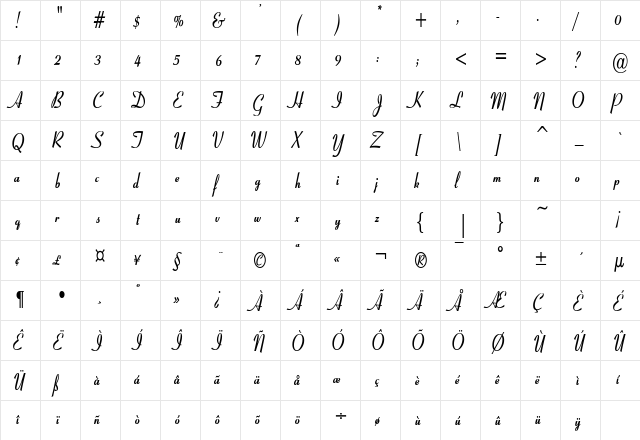
CoronationScriptCondensed Bold Font Preview
Design Context for CoronationScriptCondensed Typeface
CoronationScriptCondensed flows with the natural rhythm of handwritten lettering, making it ideal for designs that call for warmth and personal expression. The heavy weight commands attention and anchors typographic hierarchies.
Font Pairing: Combine CoronationScriptCondensed with a simple geometric sans for maximum contrast — the tension between flowing curves and clean structure is a classic typographic pairing.
Pro Tip: Pair CoronationScriptCondensed with a clean sans-serif for supporting text. The contrast between fluid script and geometric structure creates an elegant typographic hierarchy.